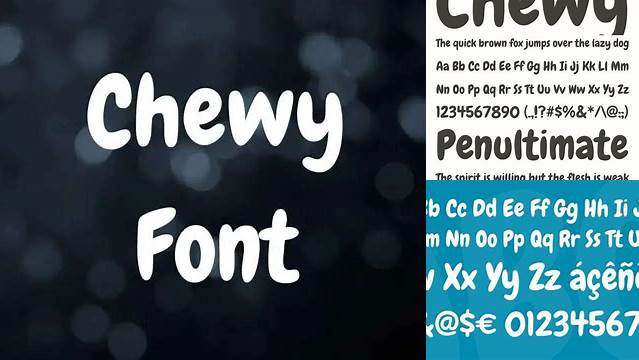
Chewy Pro Font: The Complete Guide
Chewy Pro Font: An Introduction to the Sweetness
So, what exactly is the Chewy Pro Font? In a nutshell, it's a typeface that's all about being friendly, readable, and just plain fun! Imagine a font that looks like it's been freshly baked – that's the vibe it gives off. It's got a slightly rounded, almost bouncy style that makes your designs feel approachable and welcoming. The Chewy Pro Font is perfect for a variety of projects, from eye-catching headlines to body text that’s easy on the eyes. It's like the Swiss Army knife of fonts: versatile and always ready for action. If you are looking for a Chewy Pro Font Free then you have come to the right place. The core design of the Chewy Pro Font leans into a modern, playful aesthetic. Each character is crafted with a sense of softness, lacking the harsh angles often found in other fonts. This rounded design adds a touch of warmth that makes the font feel incredibly inviting. The Chewy Pro Font's legibility is a major advantage. Despite its unique style, the font remains easily readable even at smaller sizes, making it an excellent choice for both headings and body text. Its clear, clean forms ensure that your message is communicated effectively. Furthermore, the versatility of the Chewy Pro Font is one of its standout features. It adapts beautifully to various applications. Whether you're designing a website, creating marketing materials, or crafting social media posts, the Chewy Pro Font fits right in. Its playful yet professional appearance makes it suitable for brands targeting a wide range of audiences. Understanding the essence of the Chewy Pro Font allows you to leverage its strengths to boost your design projects. By embracing its friendly, readable, and adaptable qualities, you can create designs that captivate and resonate with your audience. Ready to find the Chewy Pro Font Free version?
Chewy Pro Font Characteristics: What Makes It Unique?
The Chewy Pro Font has a few unique traits that set it apart. Its bouncy, rounded design gives it a friendly and approachable look. The font is highly readable, making it a great choice for both headings and body text. It is versatile and suitable for a range of design projects. The Chewy Pro Font has a wide range of applications, from branding to website design. This makes it a great choice to get a Chewy Pro Font Free copy of it. The Chewy Pro Font is designed to be welcoming, creating a positive impression on viewers. This characteristic makes the font perfect for brands that want to connect with their audience in a warm, inviting way. The soft curves and rounded shapes create a sense of ease and comfort. In addition to its aesthetics, the font offers practicality. It's easy to read at different sizes, ensuring that your message remains clear. The font’s legibility ensures that your content remains accessible and effective. Its ability to maintain readability across different platforms and applications adds to its appeal. It is also a great fit for branding, allowing you to create a cohesive and recognizable brand identity. The font’s unique character shapes and distinctive style will make your brand stand out. The Chewy Pro Font supports a variety of languages. This broad support ensures that your message can reach a global audience. The font’s flexibility extends to its availability in various weights and styles. These options allow you to fine-tune the appearance and the emotional impact of your design.
How to Use the Chewy Pro Font Effectively in Your Designs
Alright, you've got your Chewy Pro Font Free download, now how do you use it to make your designs pop? First things first, choose the right size. The Chewy Pro Font looks best at larger sizes, so it's perfect for headlines, titles, and short display text. Now, when selecting font sizes, consider the context of your design. For headings, experiment with larger sizes to grab attention. For body text, choose a size that is readable and comfortable. Next, make sure there’s enough space around your text. Good spacing, or leading, is crucial. It prevents the text from looking cramped. Adjust the line height to ensure there's enough vertical space between lines, making the text easy to read. The Chewy Pro Font's playful nature makes it perfect for designs where you want to convey a sense of fun and approachability. Consider using it for invitations, social media graphics, or websites. Furthermore, consider the background of your design. The Chewy Pro Font looks great when paired with a clean and simple background. Select colors that complement the font. Contrast is key to readability. Use the Chewy Pro Font with a color palette that is both visually appealing and functional. When combining Chewy Pro Font with other fonts, make sure they harmonize. Pair it with a simple sans-serif font for body text. Using the Chewy Pro Font creatively will help you make your designs unique. Experiment with different design elements, such as illustrations and color gradients. This way, you can create a visual that stands out. Remember to always test your design. View it on different devices and platforms to make sure it looks good everywhere. By making thoughtful design choices, you can make your designs shine. Always aim for a balance between visual appeal and user experience.
Combining Chewy Pro Font with Other Fonts: Best Practices
One of the best ways to make your designs look amazing is to learn how to combine the Chewy Pro Font Free download with other fonts. The key is to find fonts that complement its playful and friendly style. A great approach is to use the Chewy Pro Font for headings and titles, and pair it with a clean, readable sans-serif font for body text. This combination gives your design a balance between personality and readability. For body text, consider fonts like Open Sans, Lato, or Montserrat. These fonts are all easy to read and provide a clean contrast to the Chewy Pro Font's more unique style. When pairing fonts, pay close attention to the weights and styles. Match font weights to create visual harmony. For example, use a bold weight of Chewy Pro for a headline and a regular weight of a sans-serif font for the body text. This contrast guides the reader's eye and creates a clear hierarchy. A second important part is the font’s personality. The pairing should complement and enhance the message. For example, when using the Chewy Pro Font for a children's book, consider using another font with similar rounded shapes. Conversely, if you're using the Chewy Pro Font for a business design, consider a more professional font for the body. Furthermore, think about spacing. The Chewy Pro Font works well when there's enough space around it. Make sure the line spacing and letter spacing are balanced, so your design doesn't look cluttered. Make sure the font combination reflects your brand. When choosing fonts, consider your brand's identity. The fonts you choose should reflect your brand's personality and values. Always check the licenses of each font. Verify that both fonts can be used together. The Chewy Pro Font is a versatile font, and it can be used with other fonts in many design styles. Using your design style effectively can create the results you want to see. Experiment and find what works best for your design.
Customizing the Chewy Pro Font: Tips and Tricks
Once you get your Chewy Pro Font Free, it's time to make it your own! First, adjust the size and weight. Use different weights for headlines, subheadings, and body text. The more variation, the more interesting your design becomes. Then, play with the colors. Choose colors that are in line with your brand's identity and appeal to your audience. Consider how different colors can impact the mood and message of your design. You can also add effects like shadows and outlines. A subtle shadow can add depth. An outline can make the text pop. Be careful not to overdo it, as too many effects can distract from your message. When customizing the Chewy Pro Font, think about your target audience. Think about who you're trying to reach and how they will react to your design. Make sure your design is accessible. Ensure that your text is readable by people with visual impairments. Consider the font's context. How is the font going to be used? For web design, make sure your font is web-safe. For print design, make sure your font is compatible with your printer. Furthermore, consider kerning and tracking. Kerning adjusts the space between individual letters. Tracking adjusts the space between all letters in a word or block of text. These adjustments can help improve readability. You can experiment with different color combinations. Explore gradients and textures to enhance the font's visual appeal. By playing with these settings, you can make your designs more engaging and unique. Using the Chewy Pro Font Free version can open new design possibilities. Experiment to see what suits your project and brand best.
Kerning and Tracking: Fine-Tuning the Font
Kerning and tracking are two essential aspects of typography that can drastically improve the look and readability of your design. Kerning adjusts the space between individual letter pairs, while tracking adjusts the spacing between all letters in a word or block of text. When you use your Chewy Pro Font Free download, pay close attention to these settings to ensure your text looks perfect. Kerning is particularly important for the Chewy Pro Font because of its unique, rounded character shapes. Some letter combinations might appear too close or too far apart. Kerning allows you to make these small adjustments, creating a balanced and visually appealing text. For example, in the word